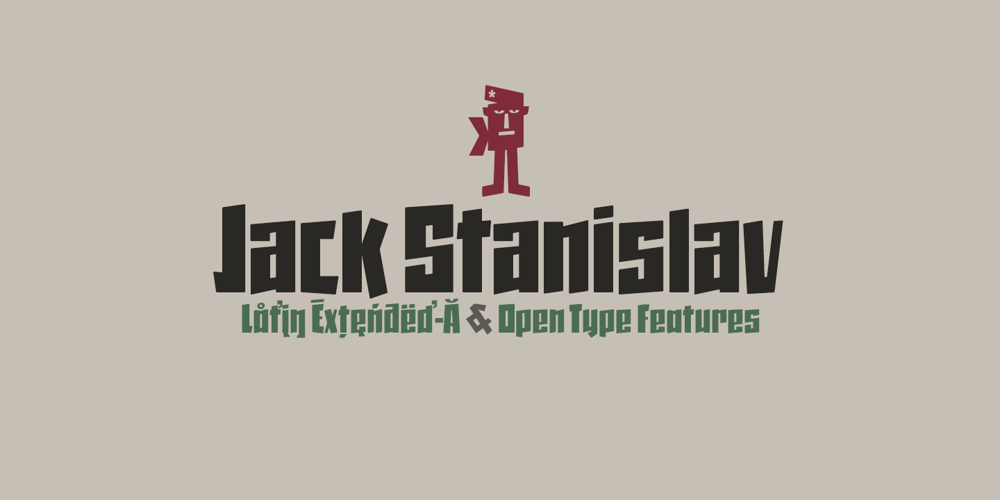
Jack Stanislav
Jack Stanislav font
Jack Stanislav Font Family was designed by Fernando Haro and published by deFharo. Jack Stanislav contains 1 styles and family package options. Very condensed typography, thick line and fun look for headlines and advertising where you are looking for saving space and originality at the same time. The upper inclination of the letters, the combination of horizontal with inclined forms, the ascending and descending short, and the lower elongation of some antlers will allow you to print varied styles with a lot of movement according to the context of the design. I started drawing this font with the intention of creating a new decorative typeface Blackletter style but modernizing the strokes, after drawing several letters imitating the ductus of this type of fonts trying to simplify them, emerged all the DNA of the current Jack Stanislav, finally a retro typography without Serif of linear strokes that mimic the angle of a thick pen. Use the following keys to write the bitcoin symbol and the Jack icon: b #, a #